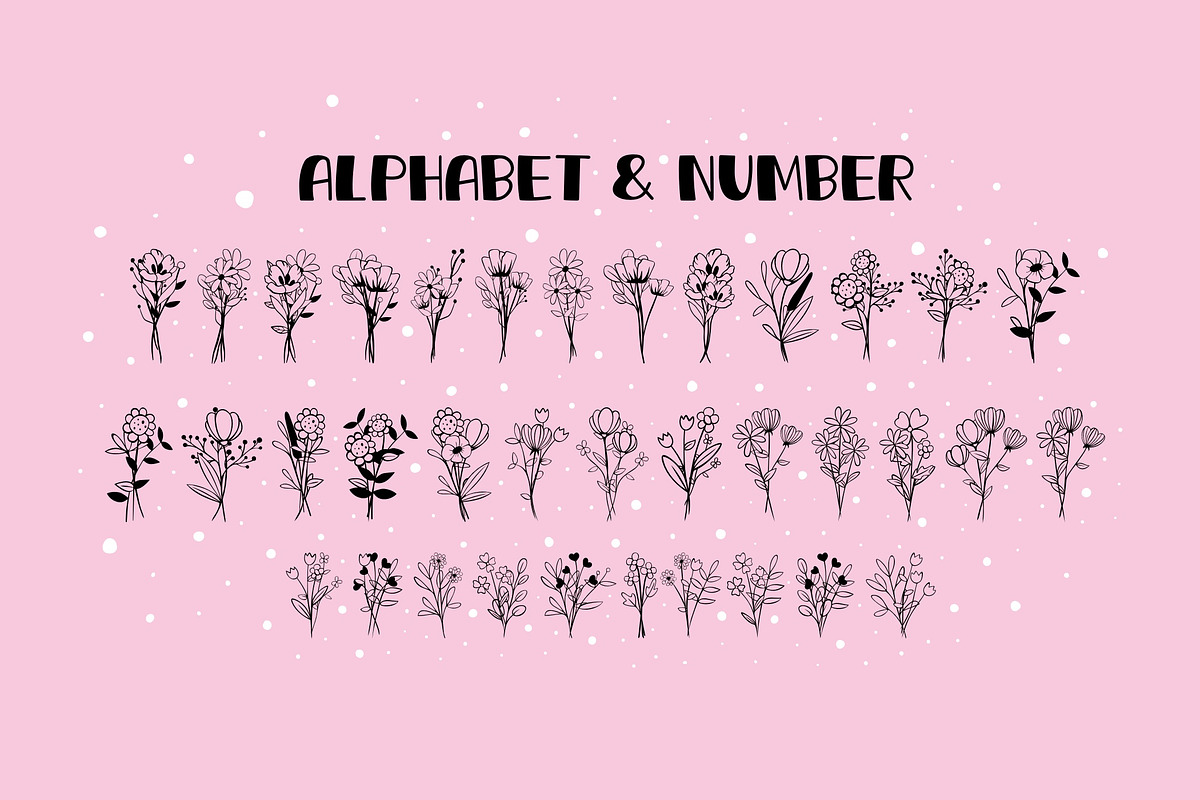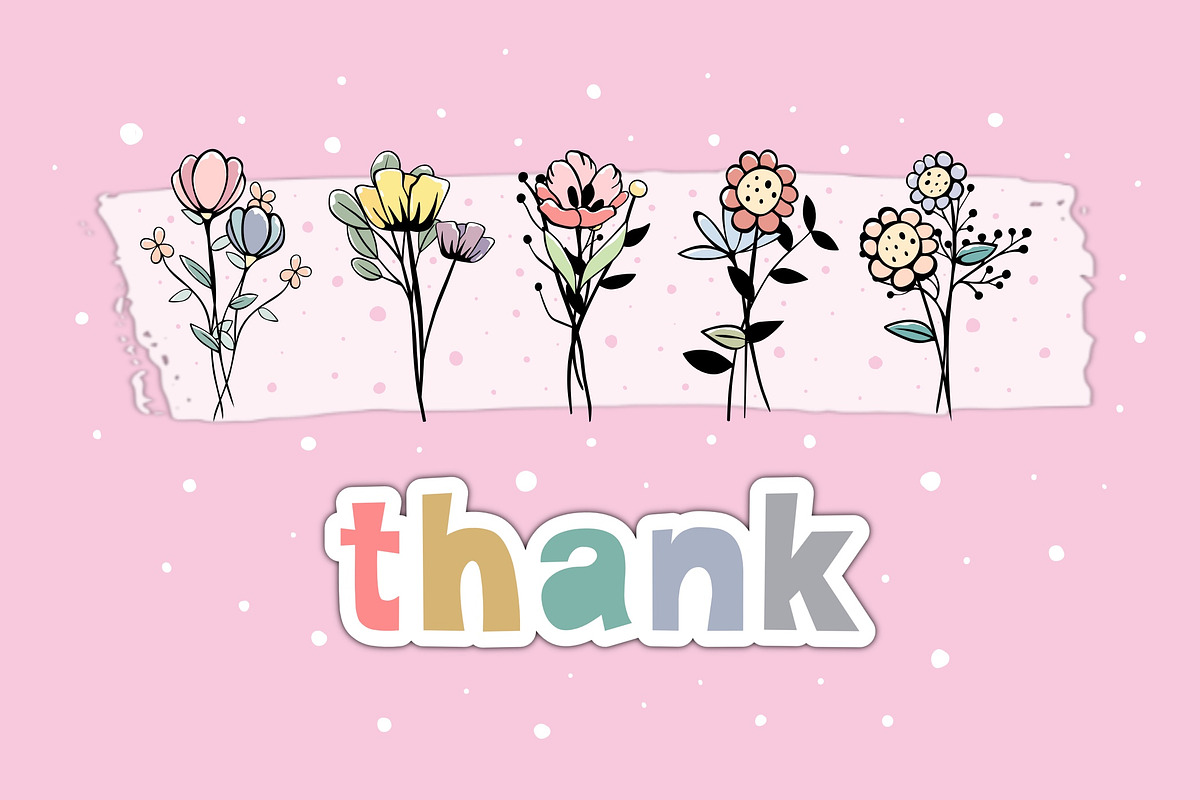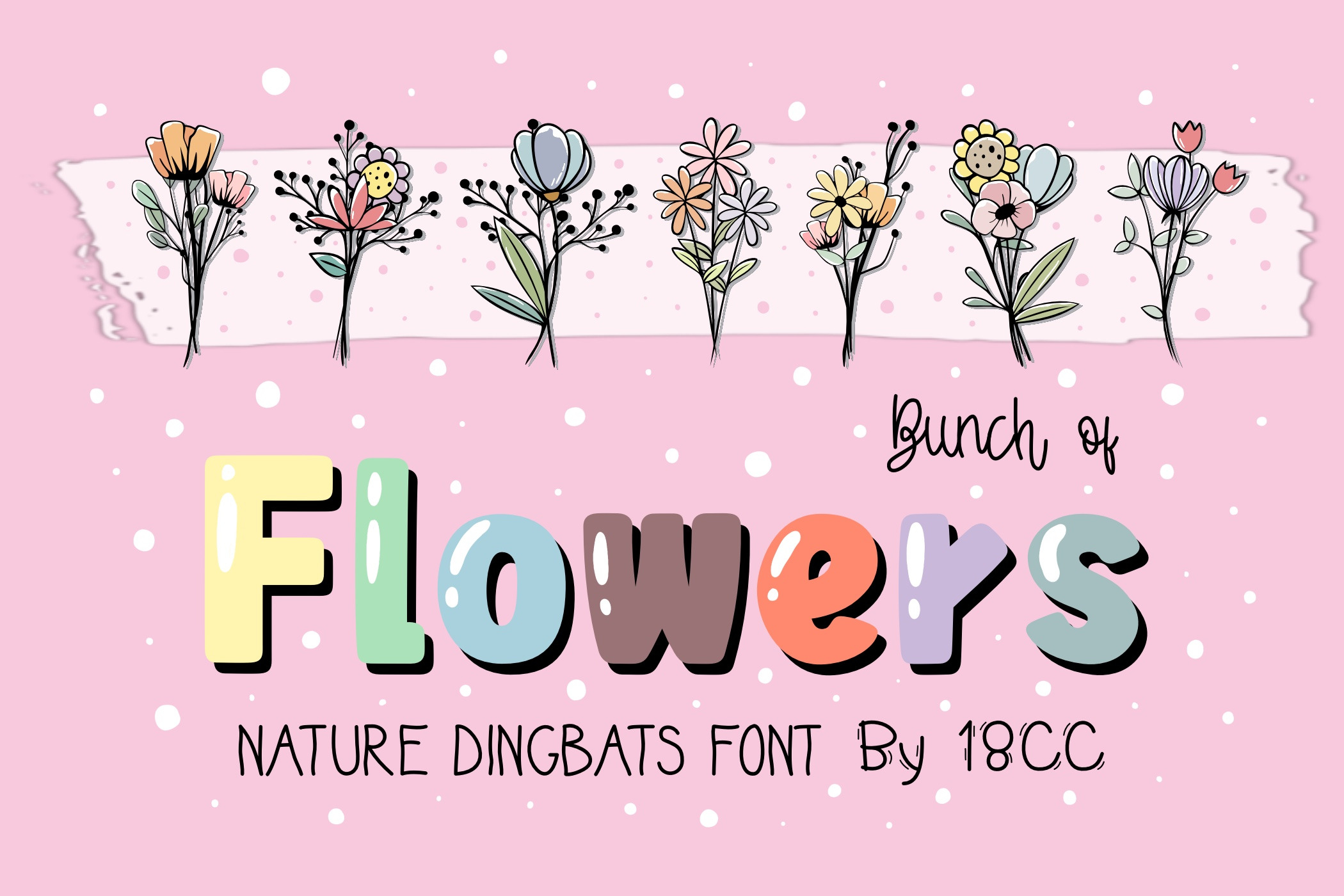
Bunch of Flowers OTF Dingbats Font
Bunch of Flowers is a nature dingbats font. This font is the perfect fit for all of your logos, wall art, signs, cards, art prints, t-shirts, coloring page, and much more!